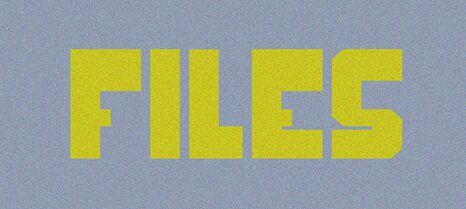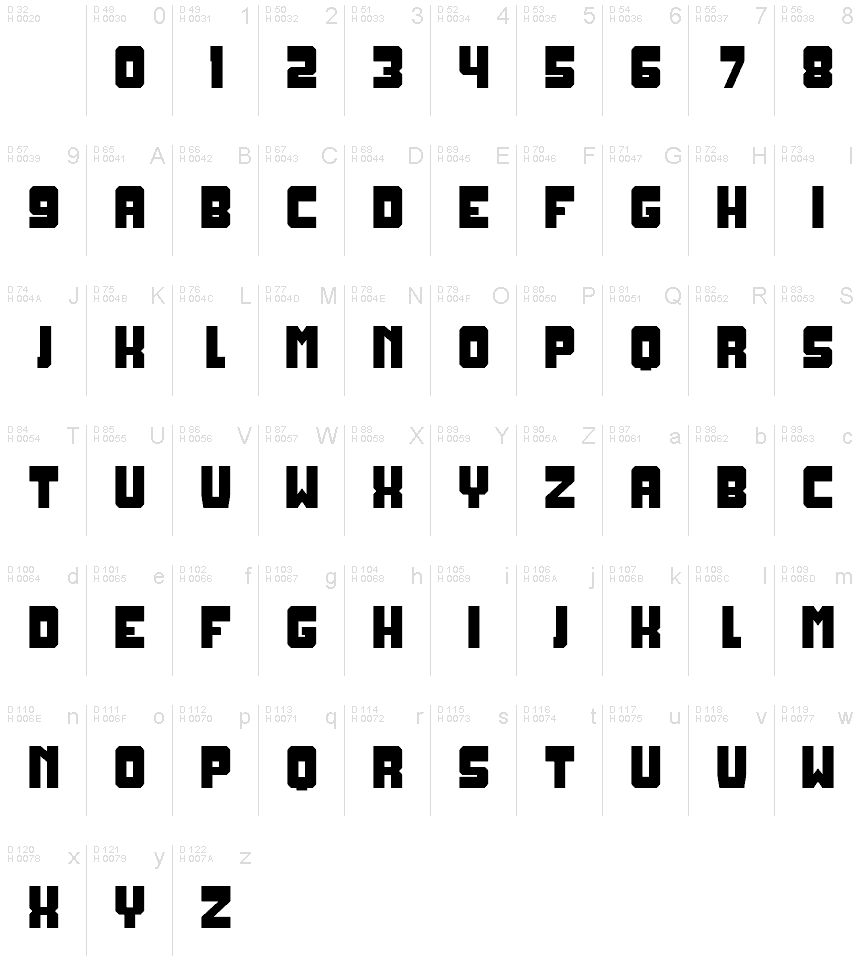
Files Regular
Files, a bold sans serif font created by Vladimir Nikolic, combines clean geometry with sharp angles and an imposing presence that screams confidence.
The font has a minimalistic design that takes inspiration from the Bauhaus movement but has more variety, thanks to its bold weight, as well as a collection of unique, geometric alternates.
Use this free typeface for titles and headlines related to art, music, technology, cars, architecture etc., and create logos for sporting events, clothing stores, and shoe brands or add a punchy, modern touch to your poster designs and apparel designs.